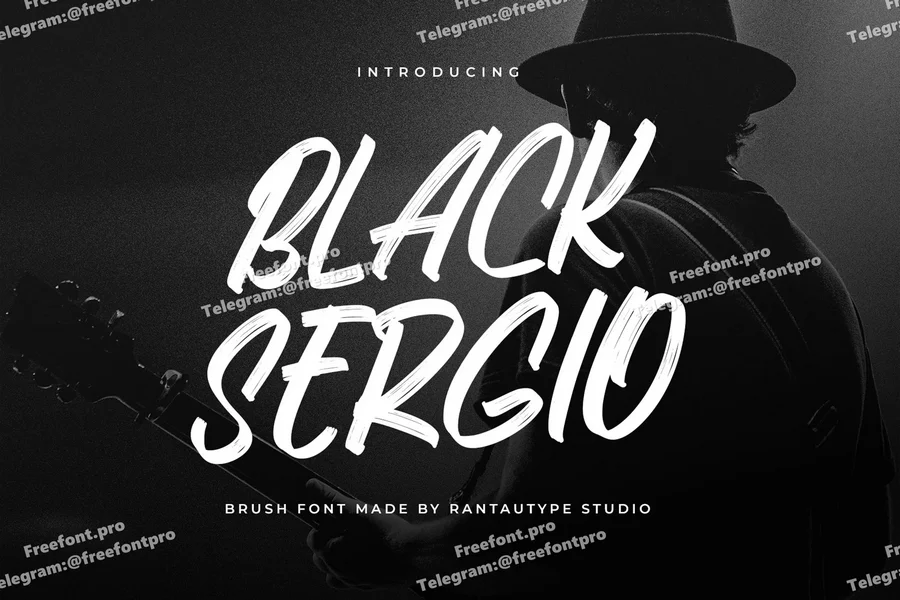
Black Sergio Brush Font
Black Sergio is brush font made by rantautype studio. Black Sergio is a perfectly choice for any creative endeavor, creating, modern, lifestyle design such as logotype, title, cover, branding, invitations, wedding designs, display and magazine, social media posts, advertisements, printed quotes, product packaging, corporate brand, product designs, labels, photography, watermarks, special events and any other project with modern touch.